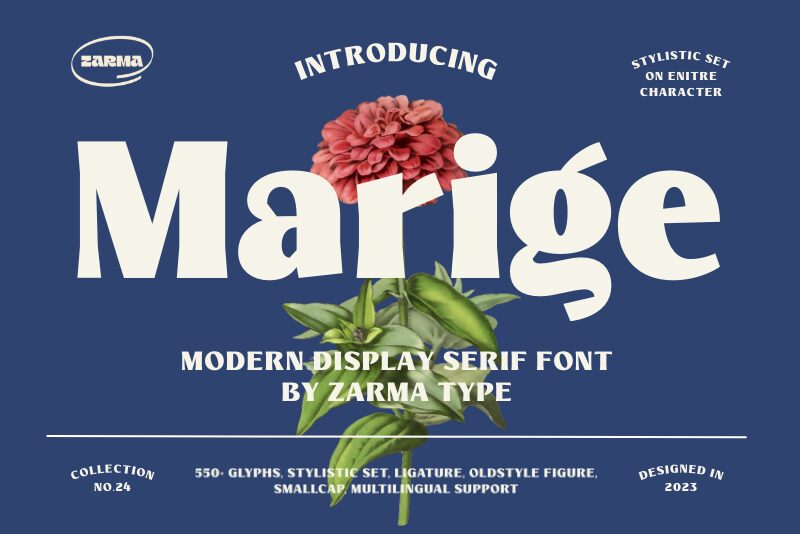
Marige, from Zarma Type Foundry, is a serif font that exudes confidence with its bold strokes and commanding presence. It offers a contemporary twist on the traditional serif, seamlessly blending elegance with modernity. The characters boast a generous width, giving each letter ample room to breathe and stand out. Its pronounced serifs add a touch of sophistication and an anchor for the eye, making Marige both aesthetically pleasing and highly readable.
Ideal for headlines that demand attention or branding that aims to make a memorable impression, Marige's robust character would also lend itself well to editorial uses where clarity and impact are paramount. Its distinctive style ensures that any text set in this font is imbued with an air of importance and tasteful authority.